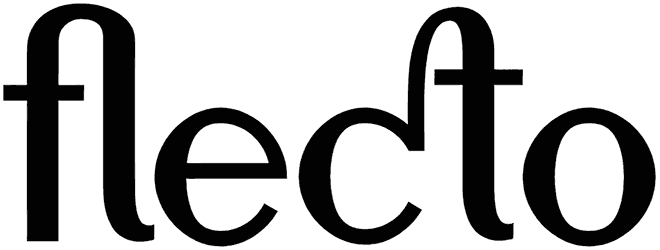
Flecto Font
Whimsical, modern, simple, and sturdy would be the best words for describing a magical ligature font called Flecto that comes with clean shapes and looks insanely perfect for a huge set of creative ideas.